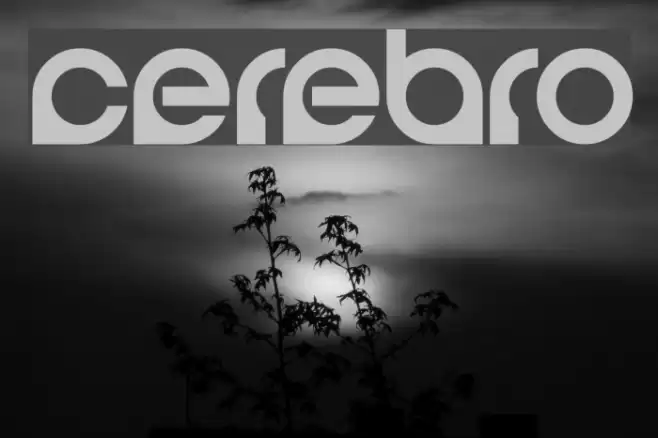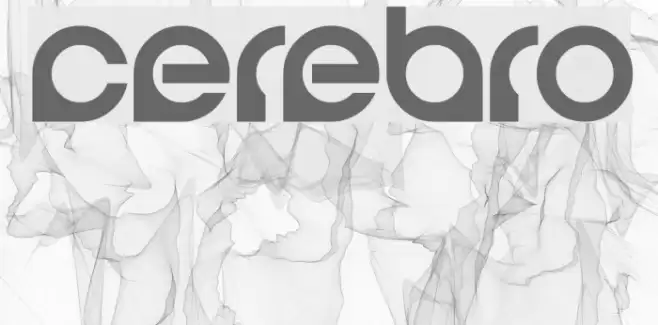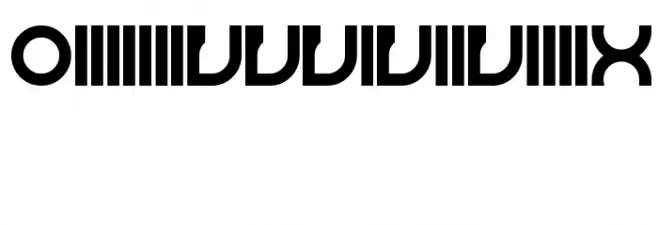
Cerebro Font
Cerebro Description
This font features a modern, geometric style with a strong emphasis on circular and angular shapes. The characters are bold and have a futuristic aesthetic, characterized by their unique cutouts and sharp angles. The design is consistent across both uppercase and lowercase letters, maintaining a uniform appearance. The numbers and special characters follow the same design principles, ensuring a cohesive look. The font's distinct style makes it stand out, suitable for projects that require a contemporary and innovative touch.
A modern, geometric font with bold, angular shapes and a futuristic aesthetic from Uncategorized fonts.
- Proposed Projects: Ideal for technology branding, sci-fi themed designs, modern logos, and digital media projects.